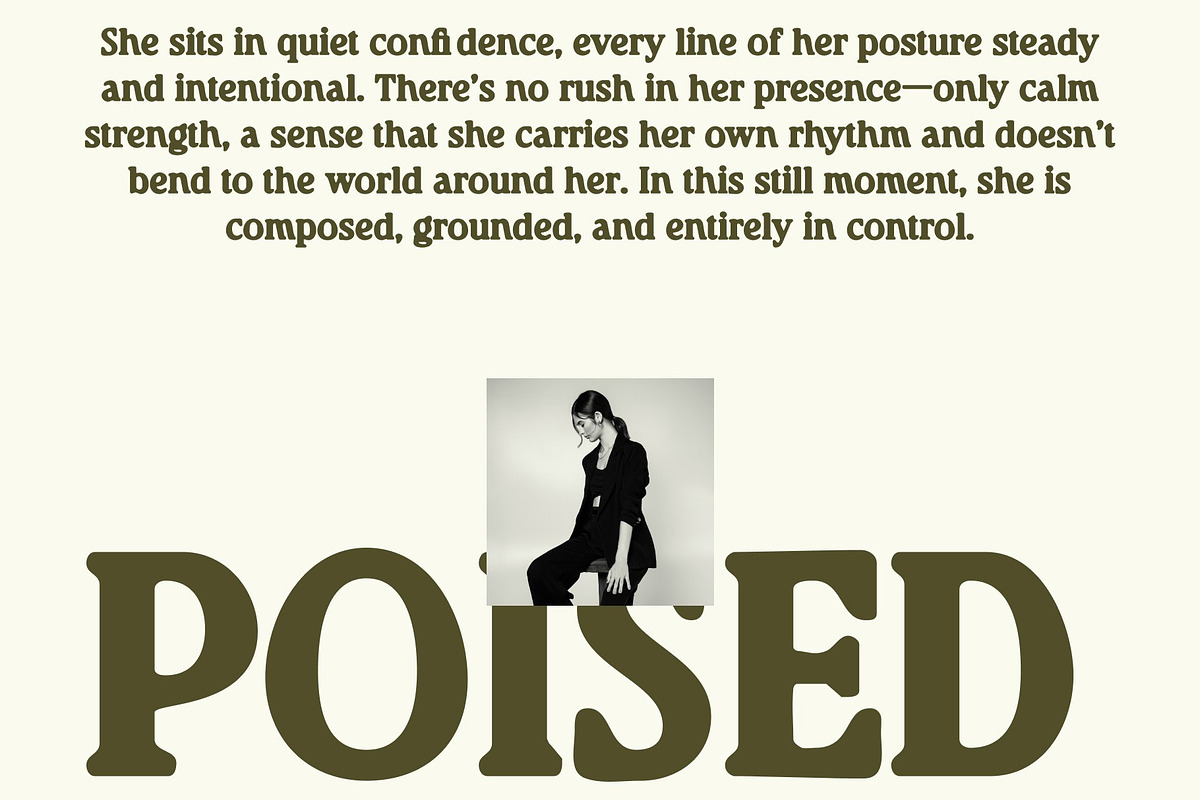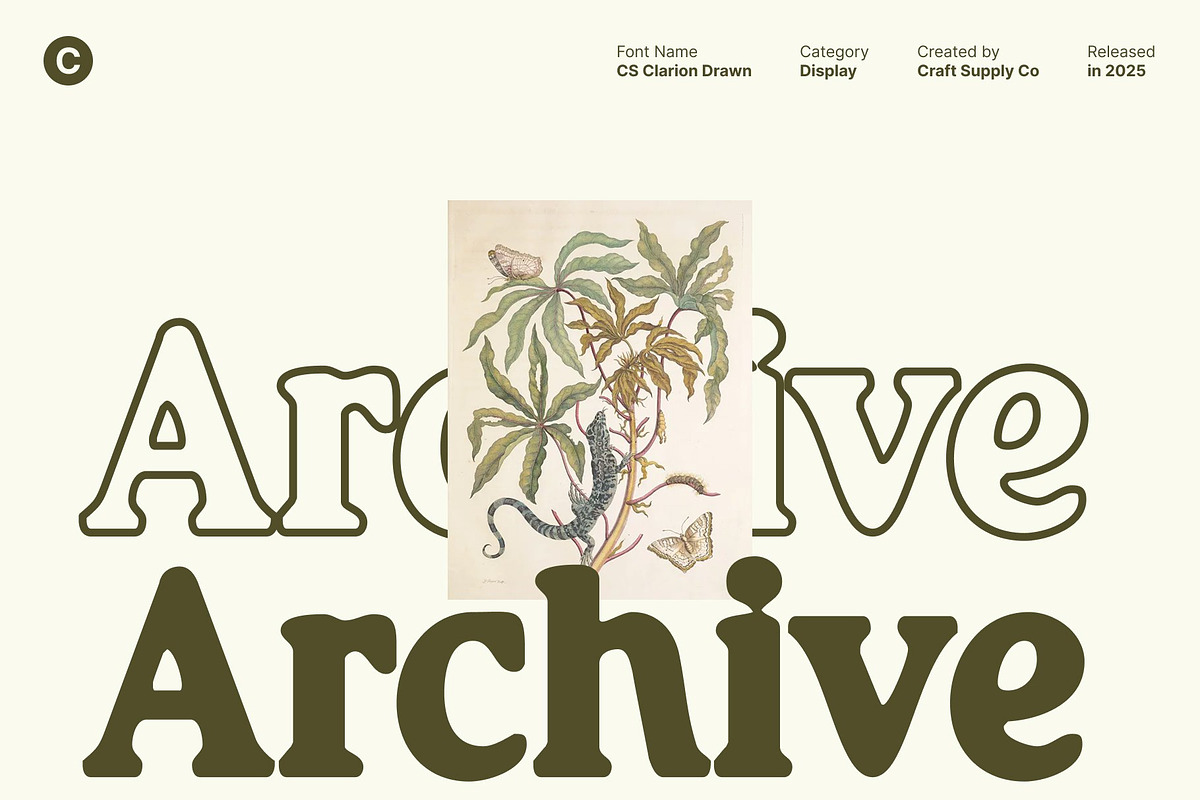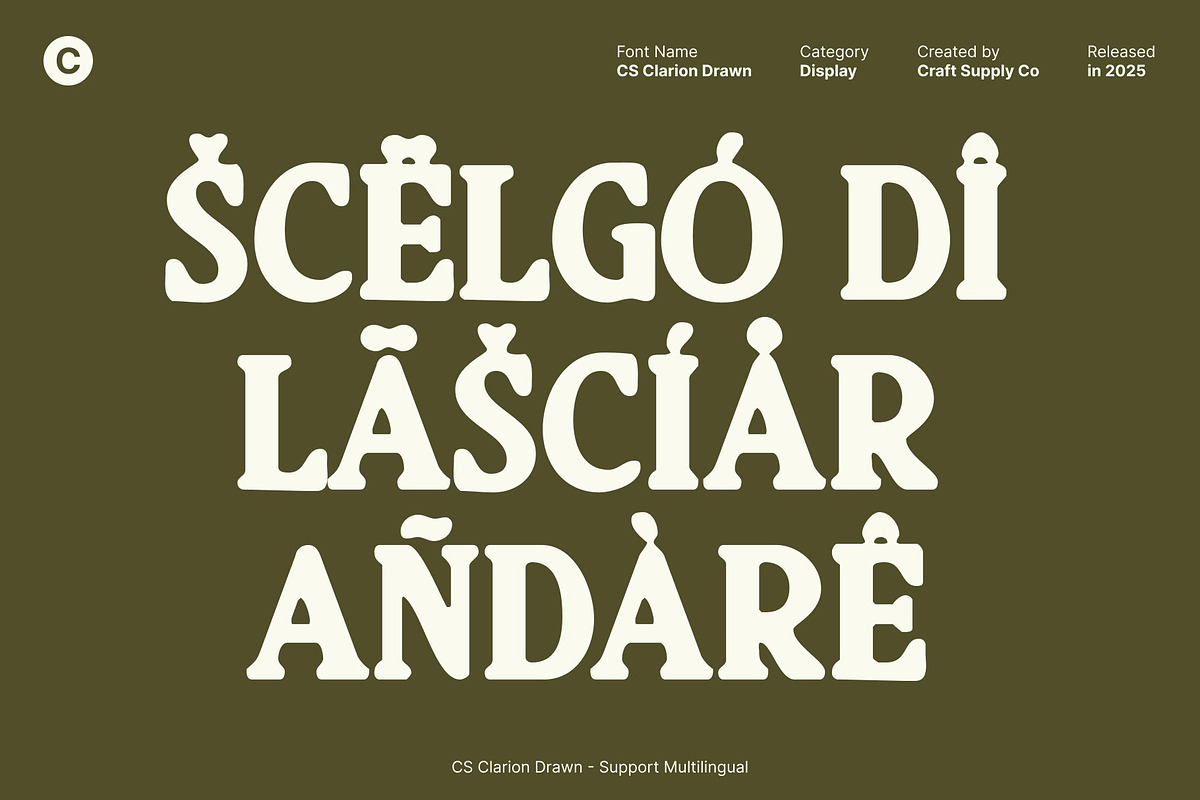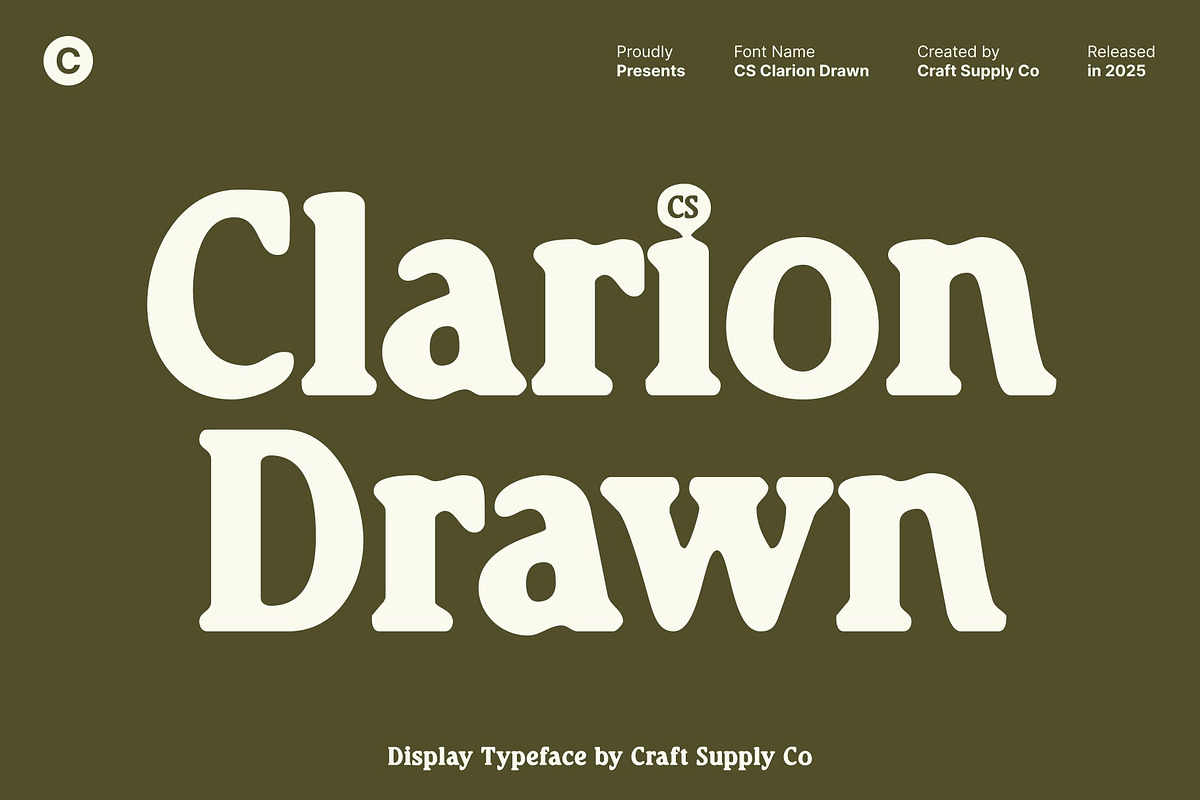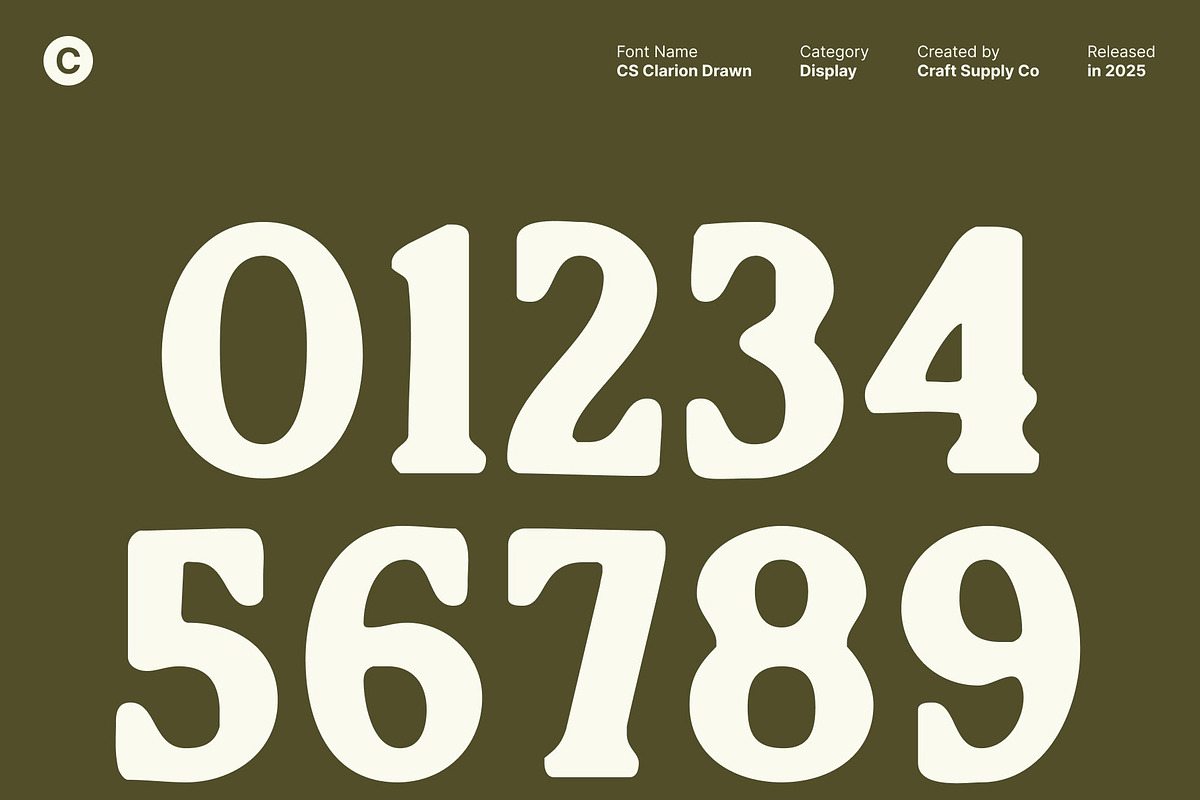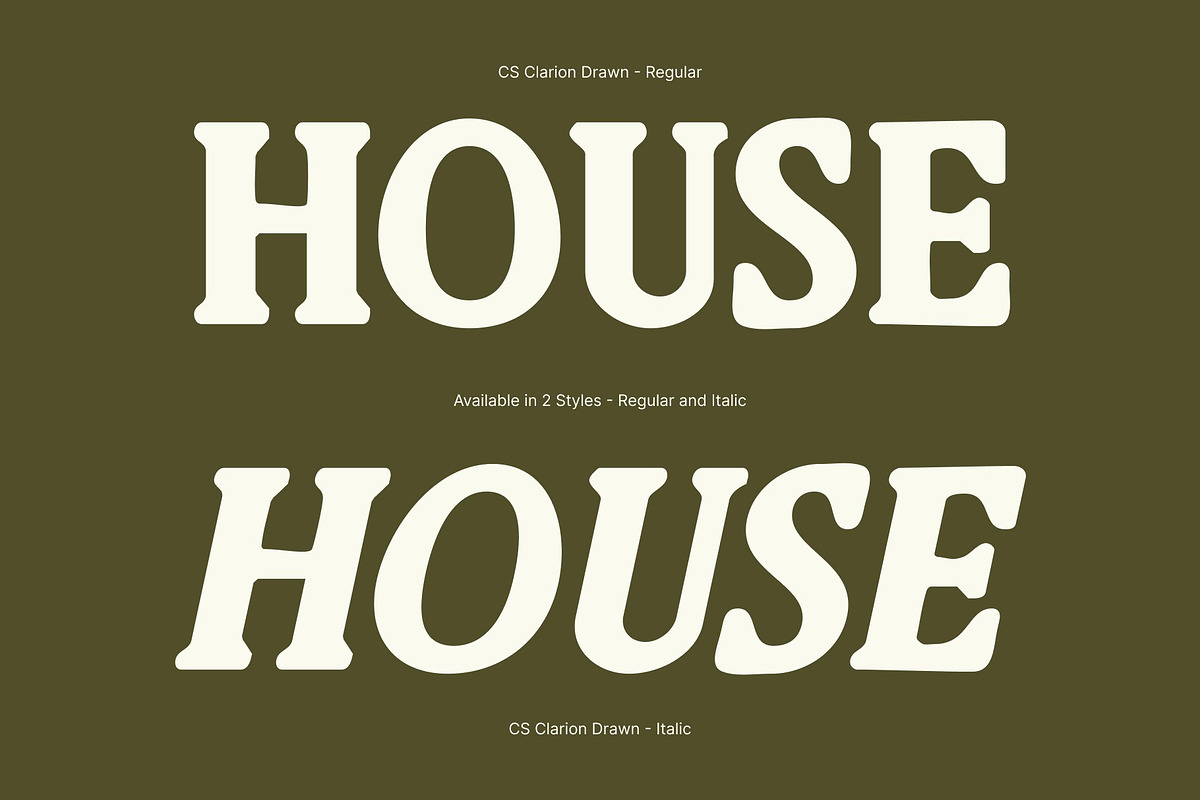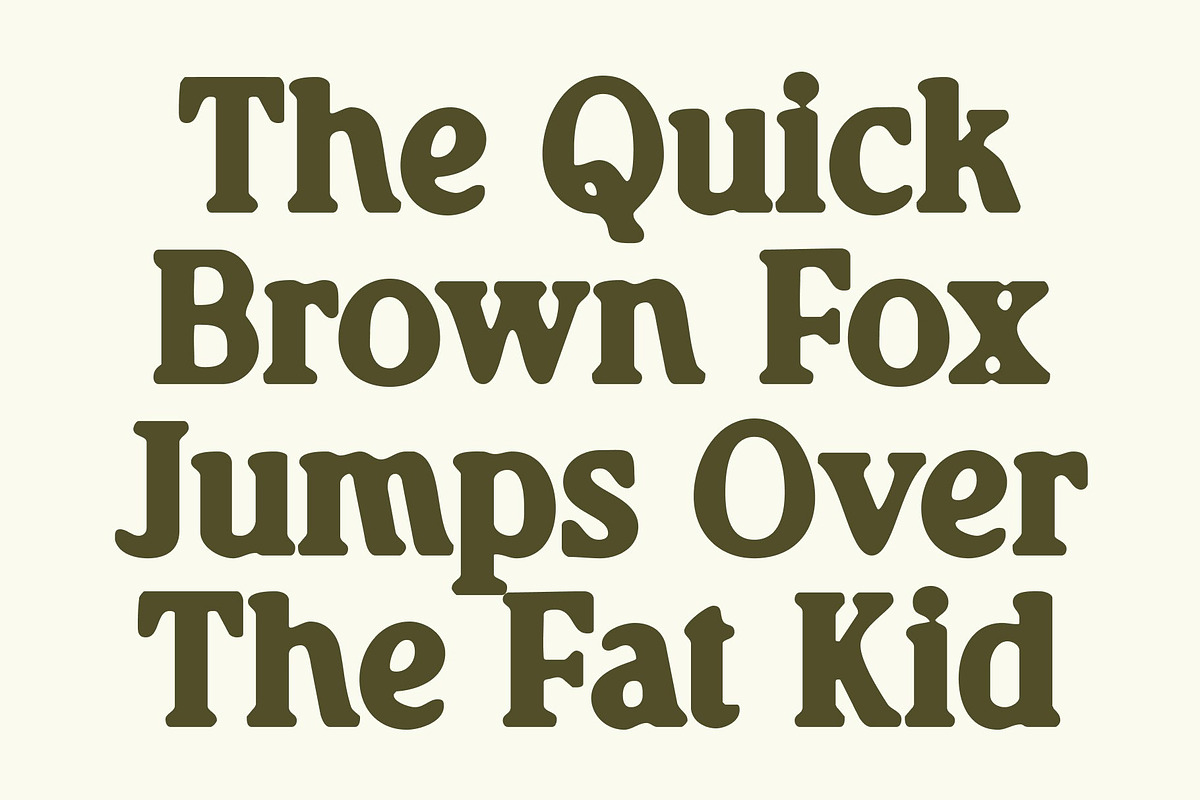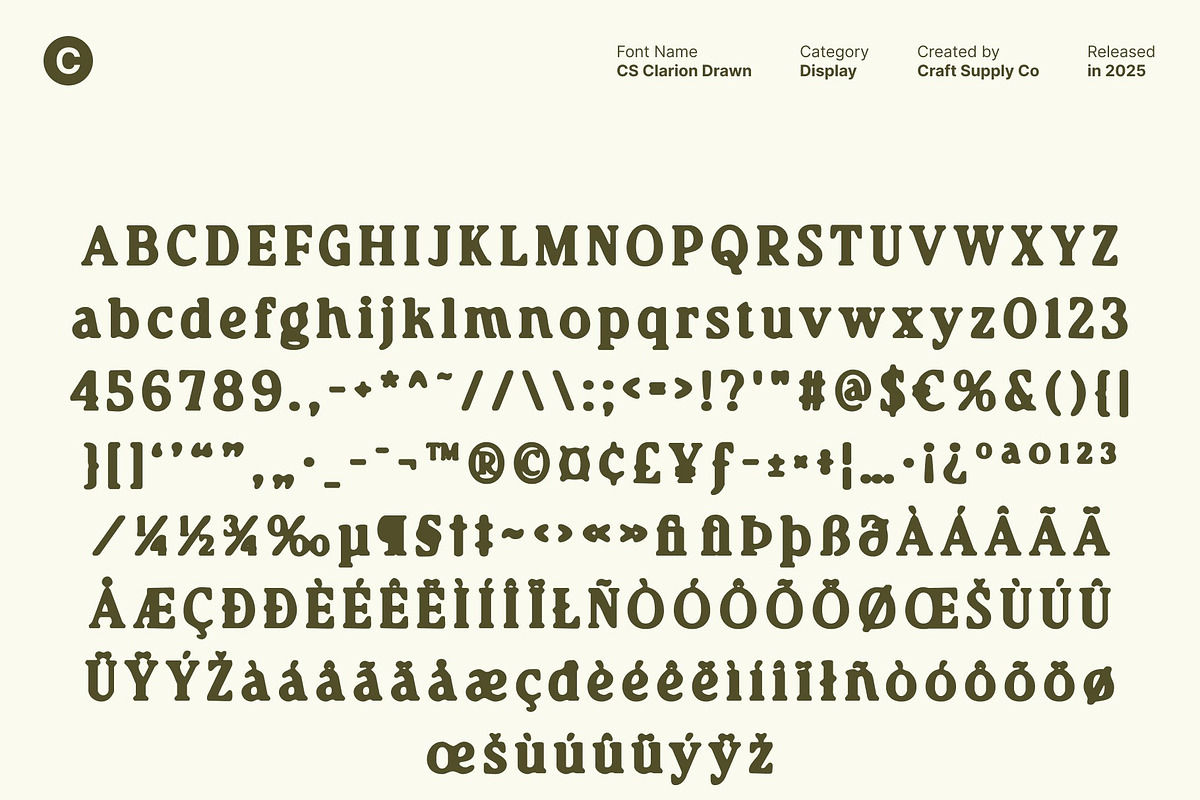
CS Clarion Drawn
CS Clarion Drawn – Modern Serif Sophistication with a Playful Edge
Elegant Structure with Subtle Playful Details This is a modern serif font that blends refined sophistication with a hint of playful charm. Its clean, well-balanced structure communicates elegance and professionalism, while carefully placed quirky details in select letterforms add personality and character. This thoughtful contrast makes the font feel polished yet relaxed, formal yet expressive.
Smooth Curves for a Warm, Contemporary Impression The font features smooth lines and gentle curves that create a warm, inviting visual rhythm. Each stroke flows naturally, resulting in typography that feels graceful and approachable without sacrificing clarity. This softness enhances readability while giving the font a modern, friendly elegance suitable for both print and digital use.
Modern Luxury with Artistic Simplicity This font captures the essence of modern luxury through simplicity and restraint. Its artistic nuances elevate the design without overpowering the message, allowing the font to stand out quietly and confidently. The drawn texture adds subtle character, giving the typeface an organic feel that enhances its visual appeal.
Ideal for Luxury Branding and Editorial Design Perfect for luxury branding, editorial layouts, posters, and refined visual identities, this font adapts effortlessly across creative projects. Whether used for striking headlines or elegant supporting text, this font delivers a sophisticated, stylish, and contemporary impression with a playful edge.
- CS Clarion Drawn Regular
- CS Clarion Drawn Italic